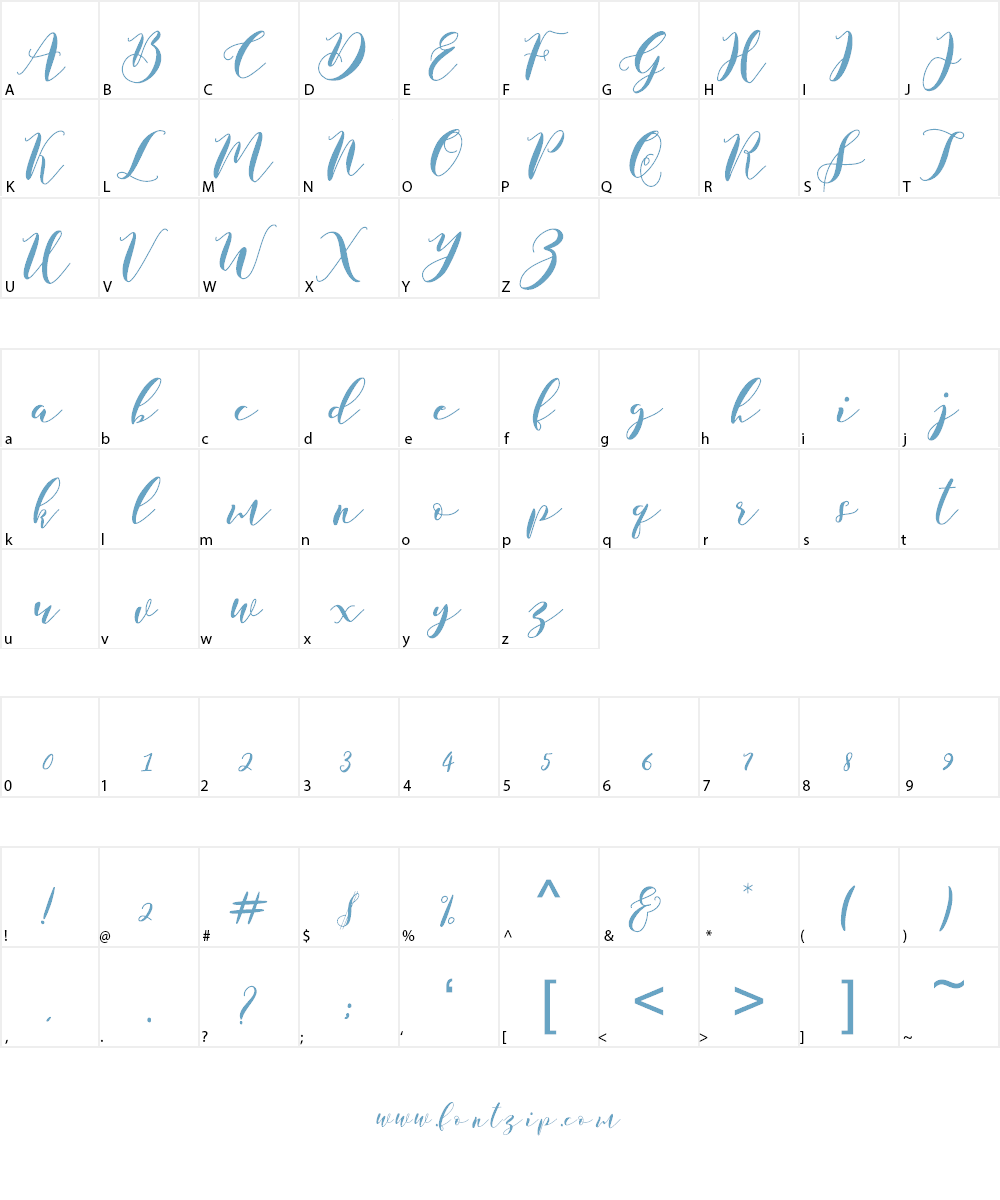
When I designed 'Saffron' I wanted something free-flowing and modern.
This font is fun and graceful all at the same time .
It is perfect for weddings, invitations, cards, web design, logos, stationary, and anything else you can imagine.